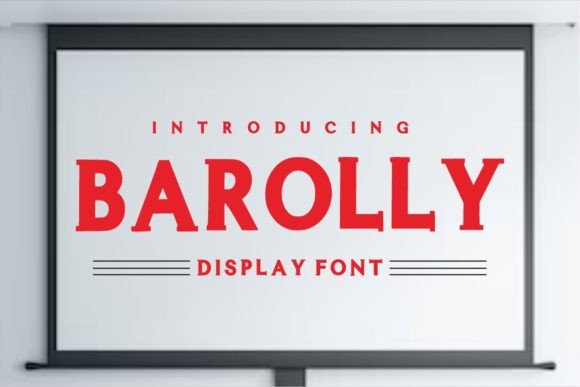
Welcome to the world of Barolly Font - where elegance meets readability! This display font is an absolute visual delight, possessing a striking sharp and dashing character that exudes luxury and style. Imagine creating projects that leap off the page, leaving a lasting impression on your audience.
Barolly Font's strength lies in its ability to transform ordinary designs into captivating masterpieces. Its casual and easy-to-read nature makes it universally appealing, while its uniqueness ensures that your projects stand out from the crowd. Whether you're crafting book covers that ignite curiosity, designing magazines that leave readers spellbound, or creating clothing that makes a bold statement, Barolly Font is your secret weapon.
Let your imagination soar as you delve into a myriad of creative possibilities with Barolly Font. Embark on a design journey where your projects exude sophistication, elegance, and an undeniable touch of magic. It's the perfect font for adding that extra sparkle to your work, leaving your audience captivated and eager for more.